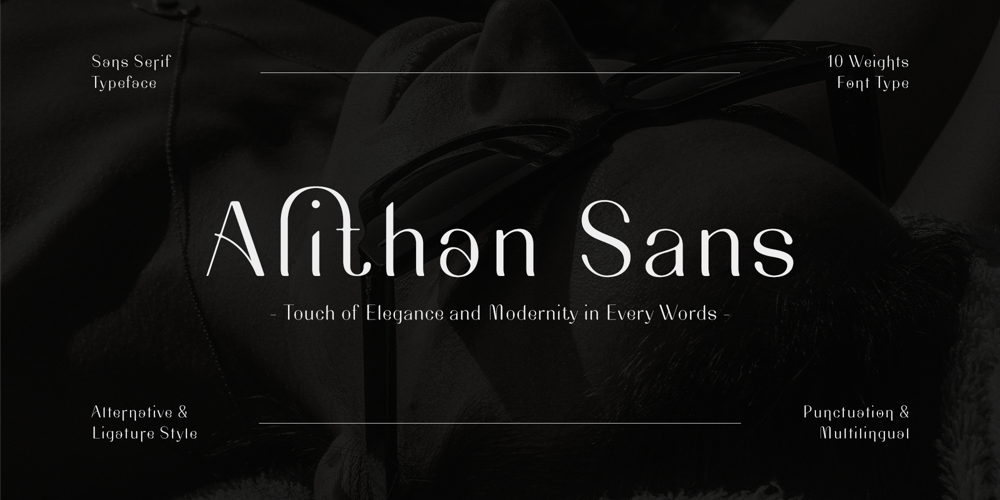
Alithan Sans Font Family was designed by Dede Kurniawan and published by Creatifont Studio. Alithan Sans contains 10 styles and family package options. Alithan Sans elevates your designs with its clean, modern design. This versatile sans-serif boasts 5 weights, italics, and a wealth of ligatures, empowering you to craft truly unique and beautiful projects. Alithan Sans – the perfect choice for contemporary projects and modern design needs.A SUMMARY OF WHAT’S INCLUDED:- Standard Character A-Z, a-z, 0-9, Punctuation & symbols, Diacritics and Accents- 5 Weight Styles and Italic Style on each weight- Lots of Ligature and Alternates- Works on PC & Mac- Simple installation- Accessible in Adobe Creative Suite (Ai, Ps, Id, etc.) even work on Microsoft Word.- PUA Encoded Characters – Fully accessible without additional design software.————————————————-SOFTWARE REQUIREMENTS:Most software readily supports the regular fonts within the package — To unlock the full potential of the extensive collection of standard ligatures (custom connected letters), you can use any software with OpenType font compatibility.To generate all ligatures, please go open Adobe Illustrator – Type – Glyphs.Please drop me a message if you have trouble regarding either installing or using this font.🌟If you come across any issues or notice anything we might have overlooked while using this product, please feel free to reach out to us. We greatly value your feedback as it helps us enhance and refine our products. Thank you!